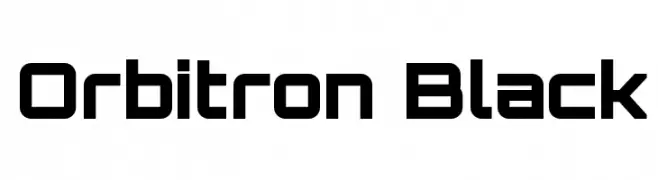
A bold, futuristic font with geometric and angular design elements.
A futuristic, geometric font with bold, clean lines and a digital aesthetic.
A sleek, futuristic font with geometric shapes and a modern aesthetic.
A futuristic, geometric font with clean lines and a tech-inspired aesthetic.
A futuristic, geometric font with clean lines and a modern aesthetic.
A futuristic, geometric font with bold, clean lines and squared edges.
A futuristic, geometric font with clean lines and a modern aesthetic.
A futuristic, geometric font with clean lines and angular shapes.